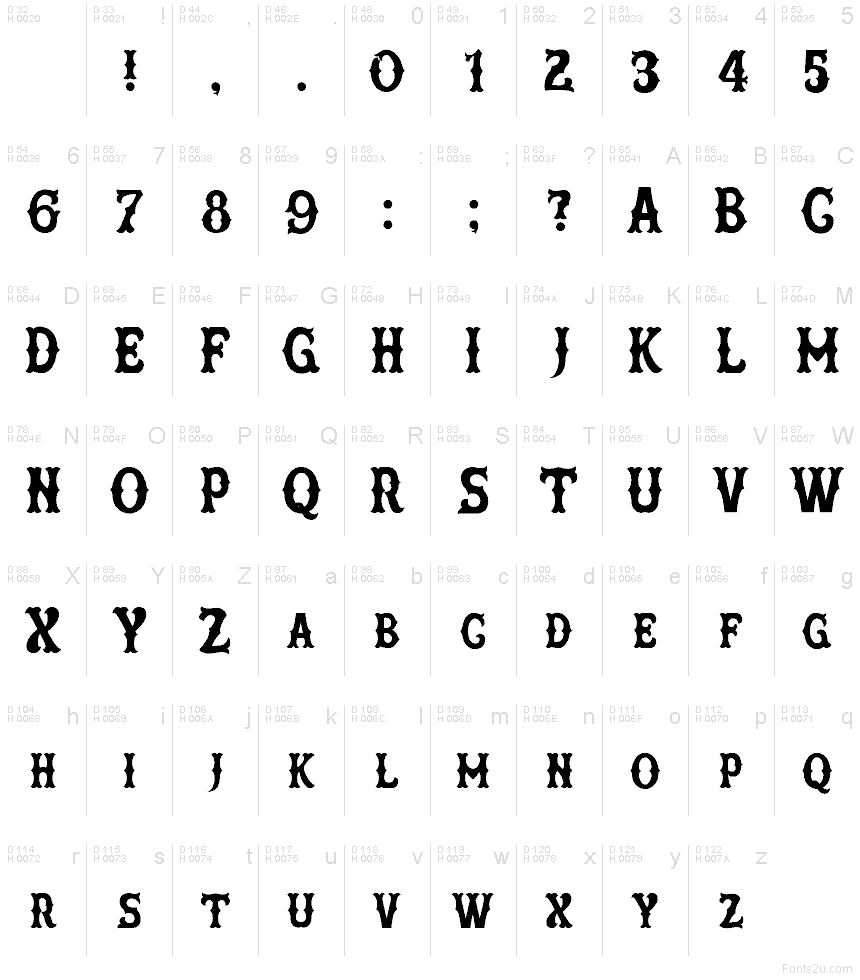
Americana Retro Personal Use
Americana Retro font by Mocha Frappuccino of Lettercorner Studio is a free western retro display font. Its defining charm is the bouncy, hand-cut feel—chunky strokes, scalloped edges, and lively curves that swagger like a painted rodeo sign. The letters land with woodblock weight yet keep a playful swing, giving headlines a tactile, inky presence without going cartoonish.
Using Americana Retro, you can light up posters, rodeo or fair flyers, BBQ menus, vintage soda labels, country album covers, and craft-beer cans. The generous forms read big and bold, so let them breathe; a touch of extra spacing makes the rhythm sing. For balance, pair this free font with a simple, modern sans to keep layouts crisp.